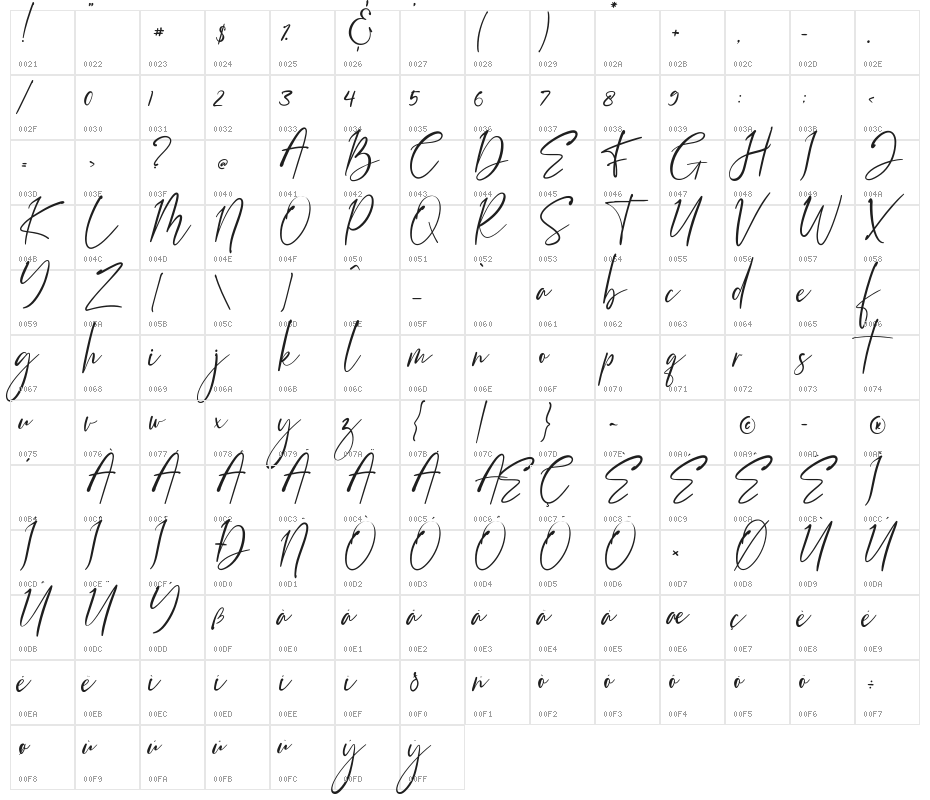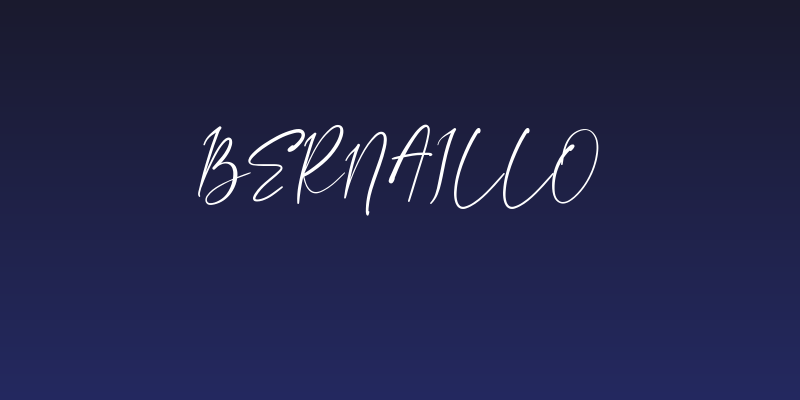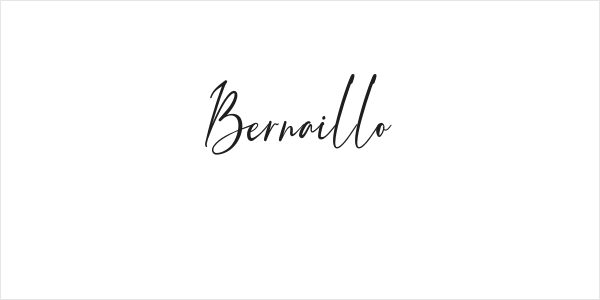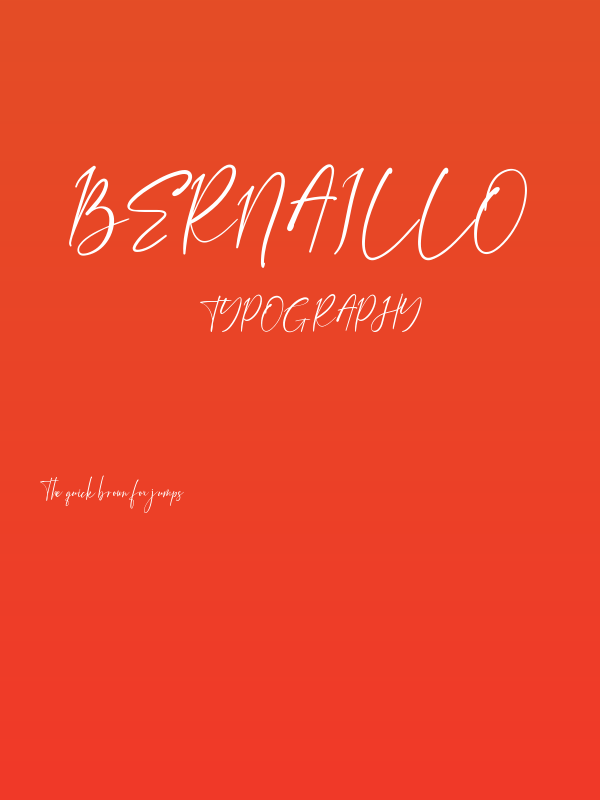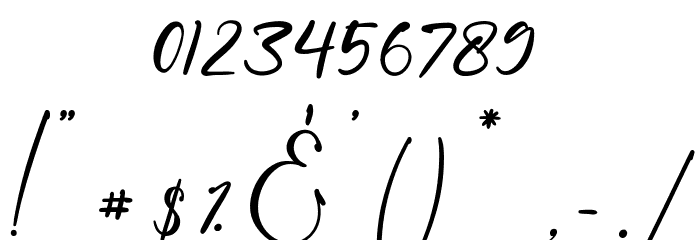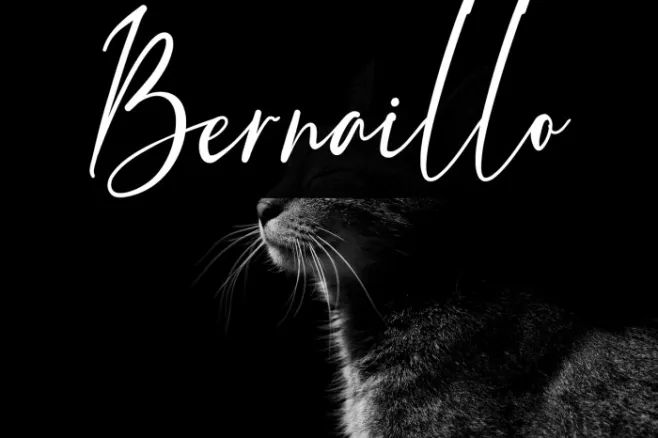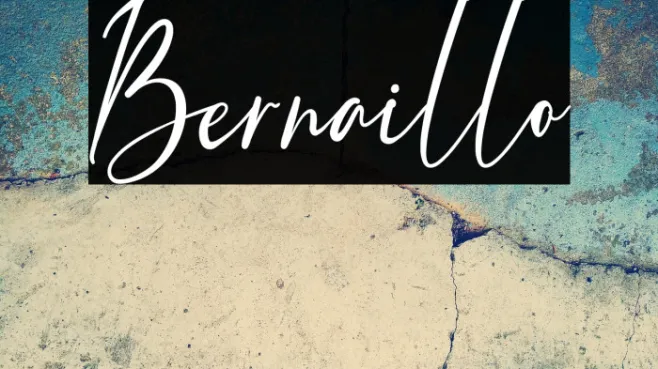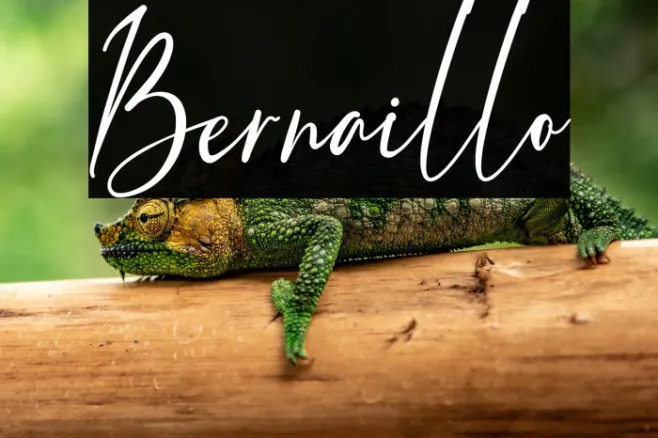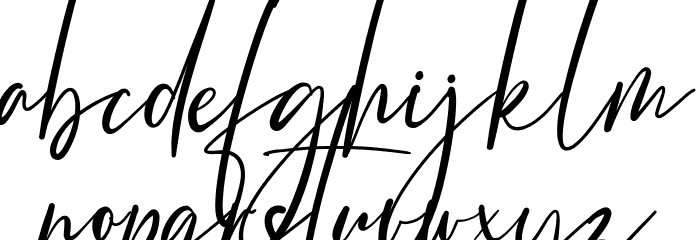
Bernaillo Font
Bernaillo Description
This font exudes a dynamic and expressive style, characterized by its fluid, cursive script that mimics natural handwriting. The letters are elegantly connected, with a consistent slant and smooth curves that give it a sense of motion and grace. The uppercase letters are bold and slightly elongated, while the lowercase letters maintain a more compact form. The numbers and special characters are crafted with the same flowing style, ensuring a cohesive look across all text. This font's artistic flair makes it ideal for creative projects that require a personal touch.